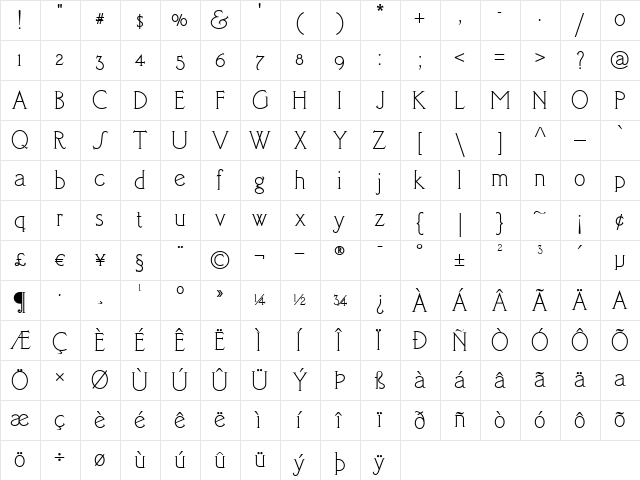
Parsifal Olde Style NF Regular
| Foundry | Nick Curtis |
Design Context for Parsifal Olde Style NF Typeface
Parsifal Olde Style NF offers clean, dependable letterforms without strong stylistic allegiance, making it a practical choice for designers who need flexibility.